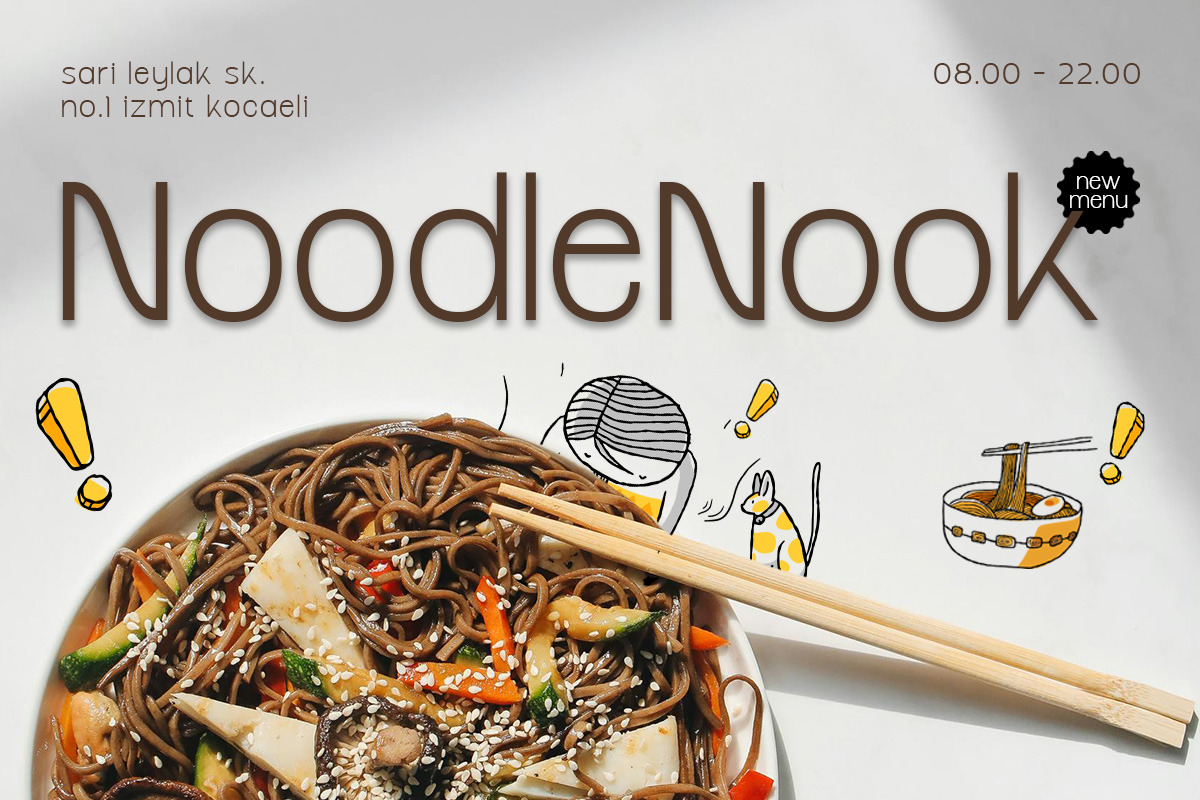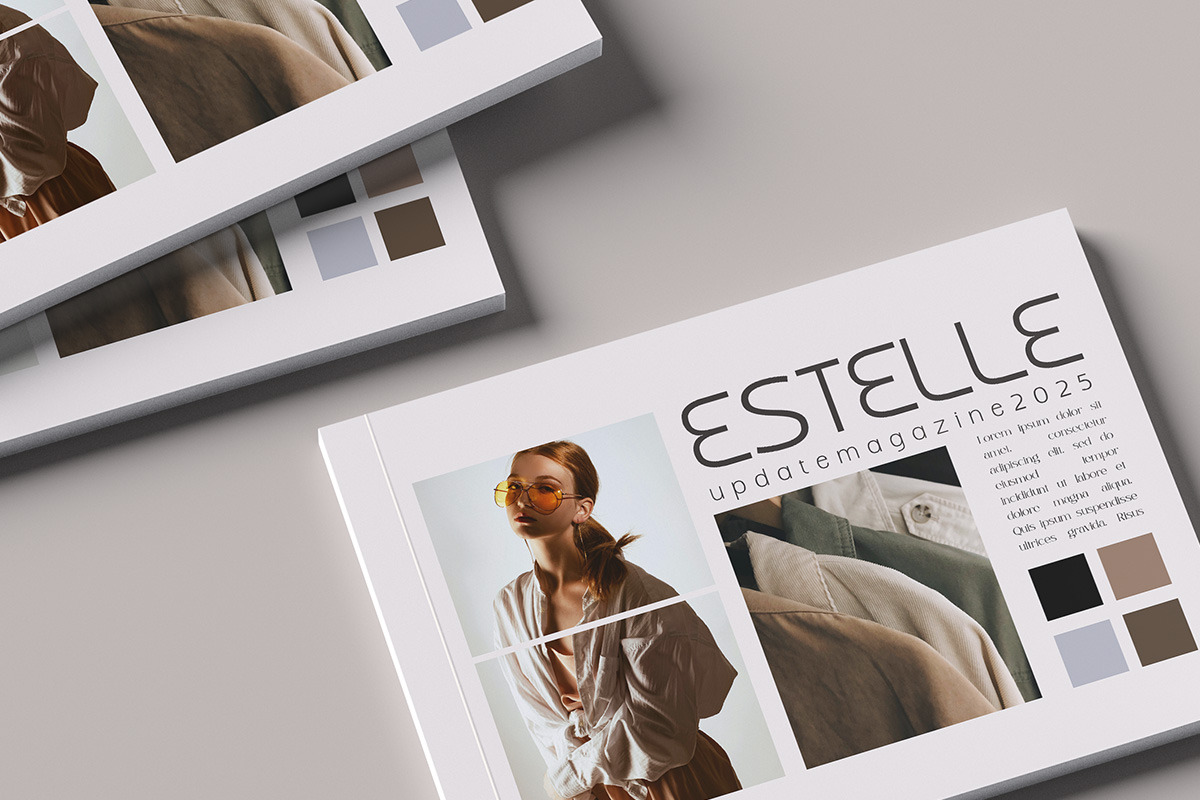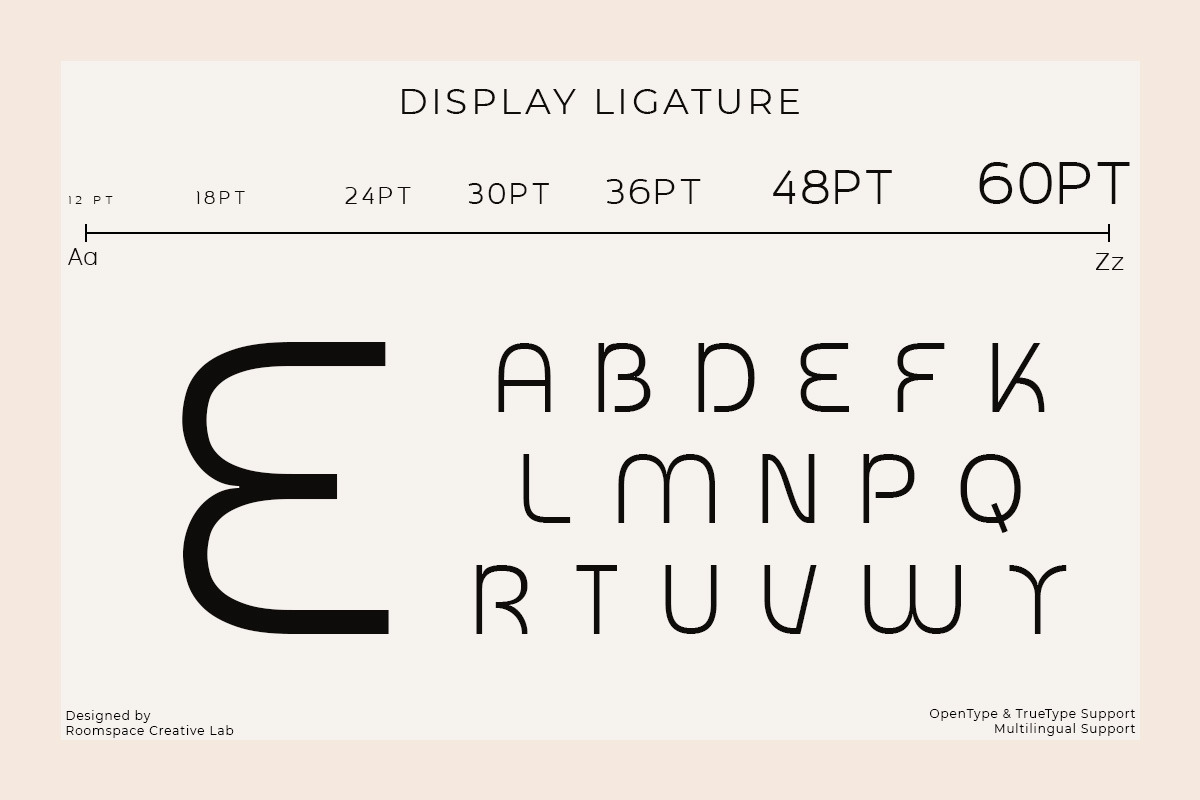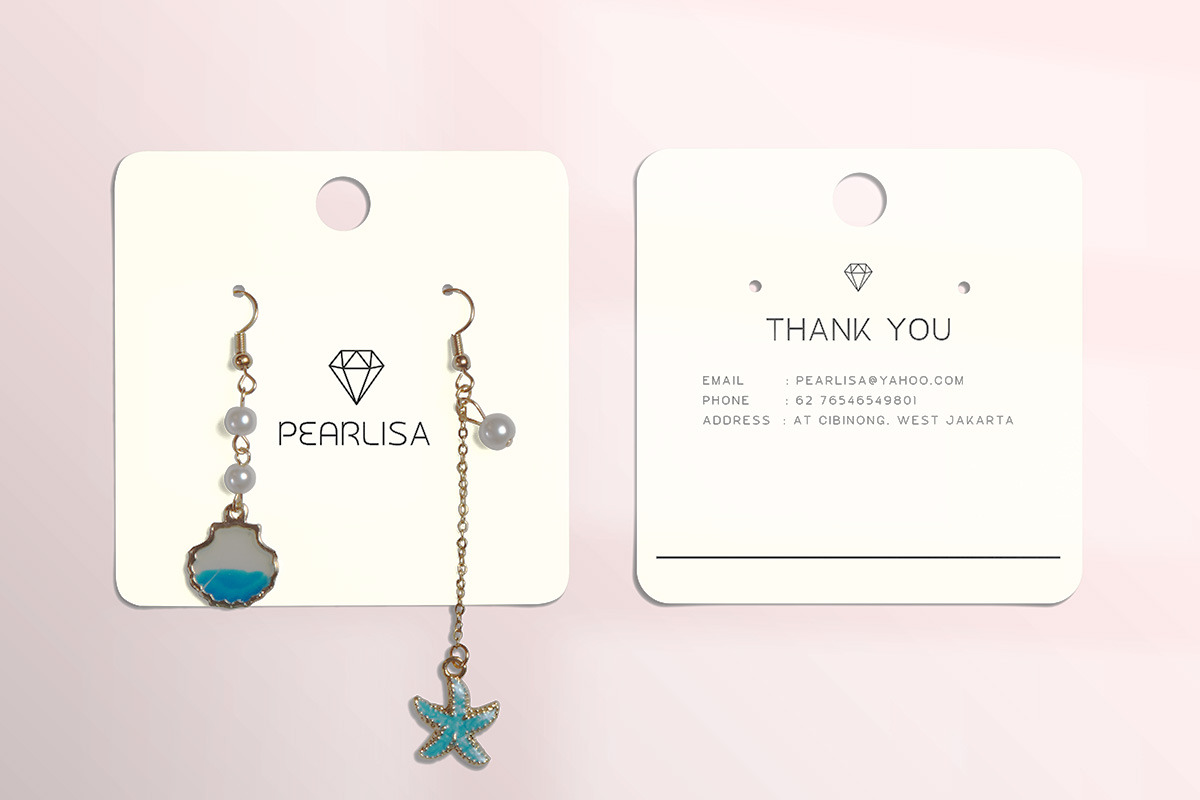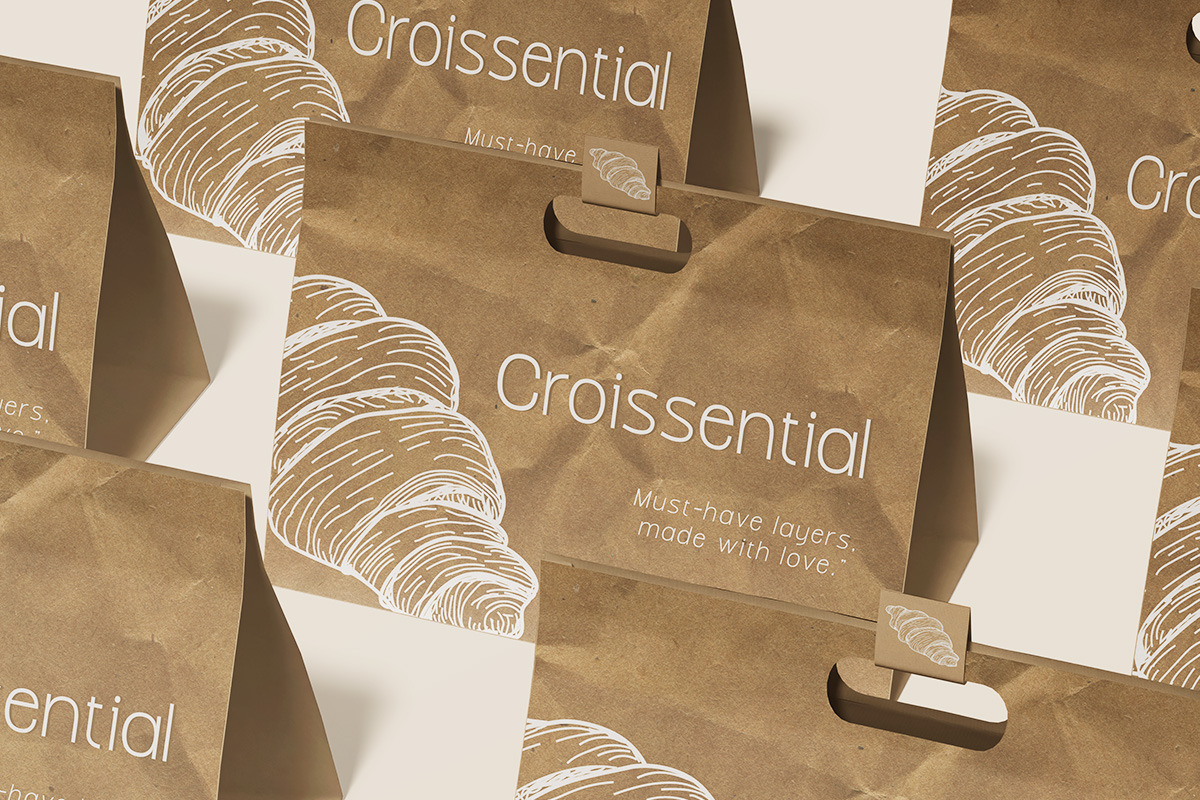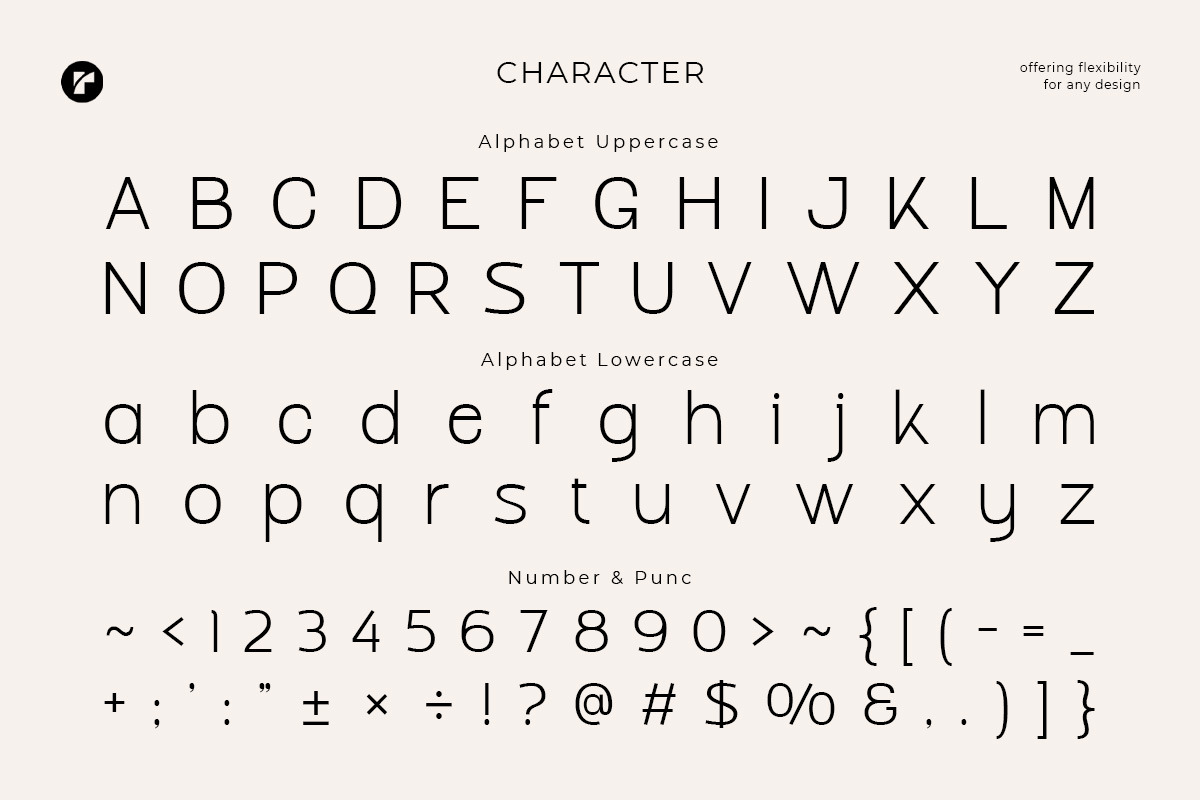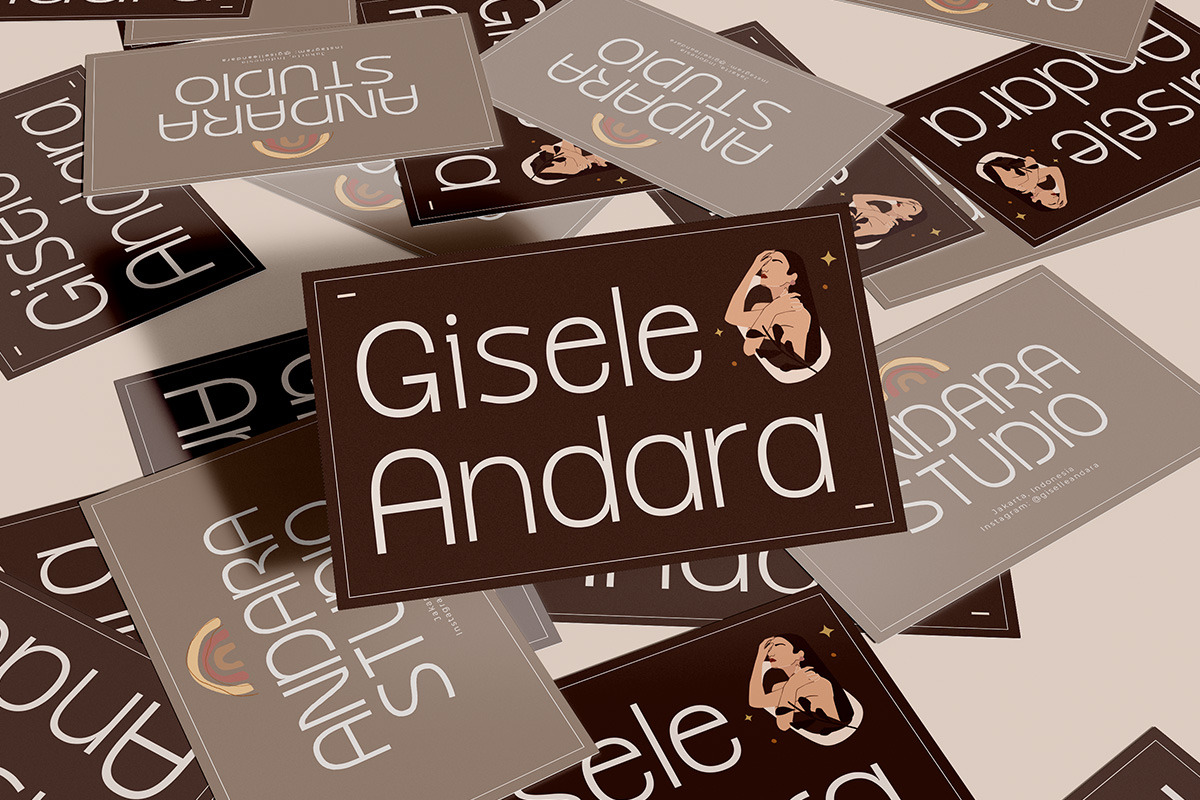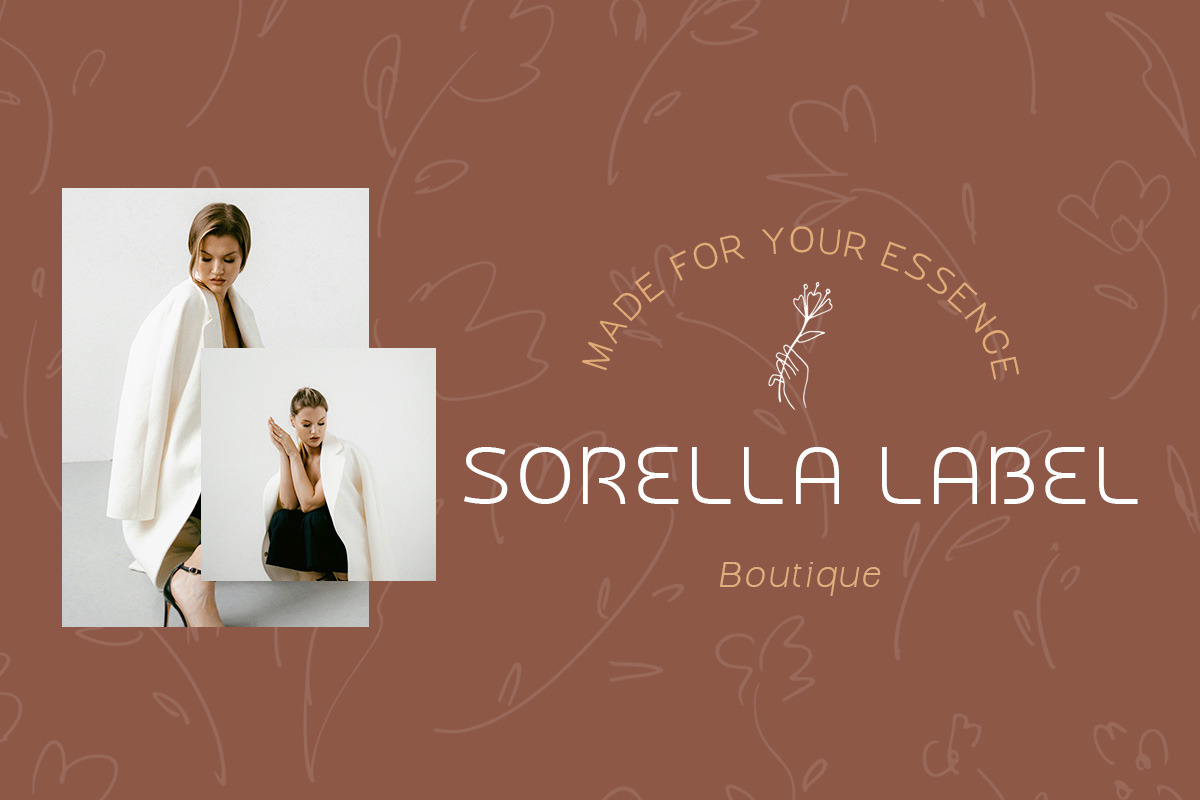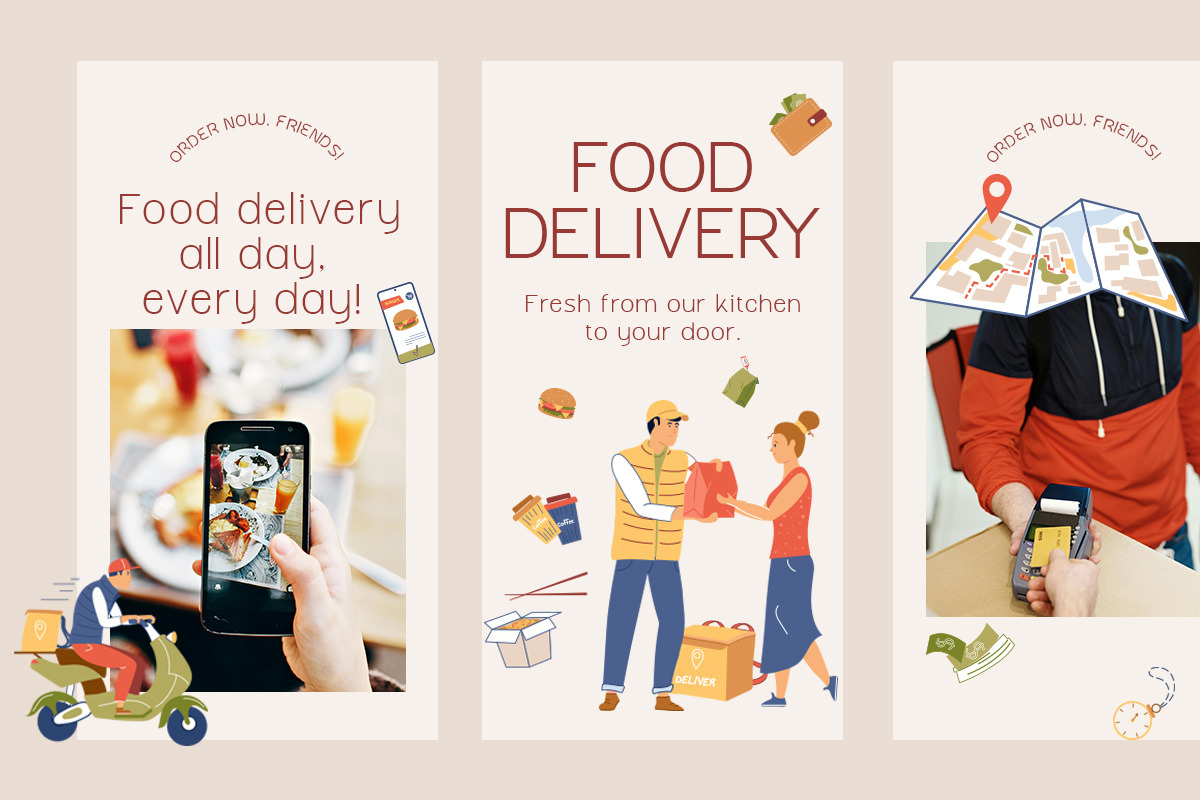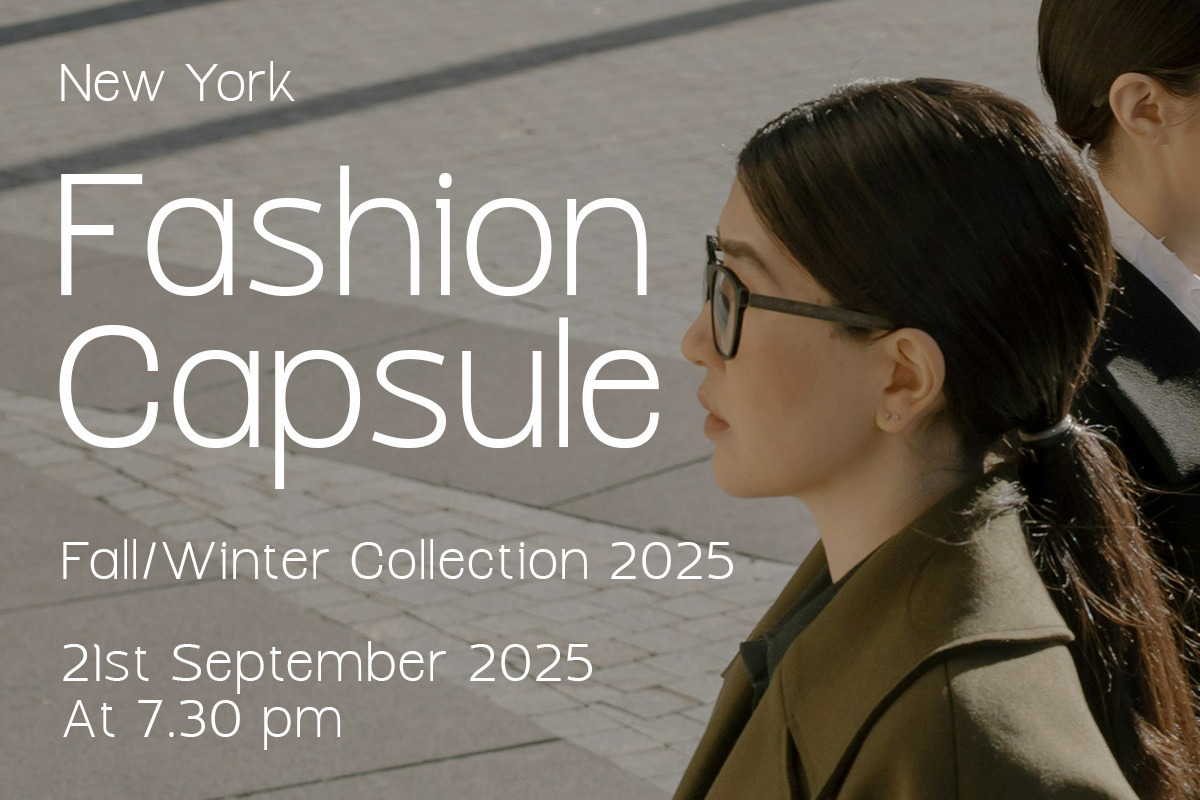
Ovelyn - Modern Minimalist Clean
Evelyn – a sleek and modern geometric sans serif font designed to elevate your creative vision. Evelyn captures the perfect balance of clean lines, sharp edges, and contemporary elegance, making it a standout choice for a wide range of design projects.
With its regular yet minimalist character, Evelyn is ideal for logo design, branding, editorial layouts, and web design. Each letterform is crafted with precision, creating a harmonious flow that enhances readability while maintaining a unique visual presence.
Evelyn’s refined geometric style delivers a timeless appeal with a modern twist, making it the perfect choice for designers who seek a font that is bold, sophisticated, and versatile.